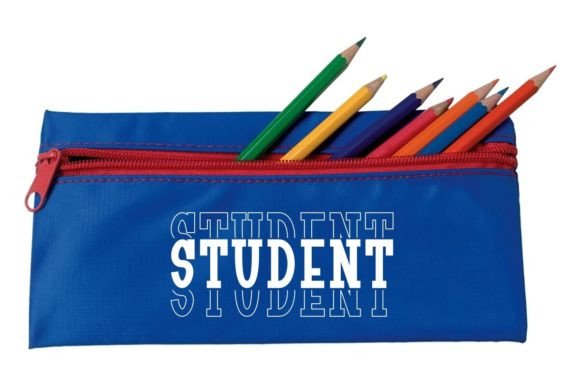
Varsity Stacked Font
Varsity Stacked is a bold and vintage stacked slab serif font perfect for a variety of creative projects. This font combines a retro charm with a strong and impactful design with a dynamic touch. Perfect for backgrounds, t-shirts, decorations, greeting cards, mugs, tote bags, pouches, and pillows.